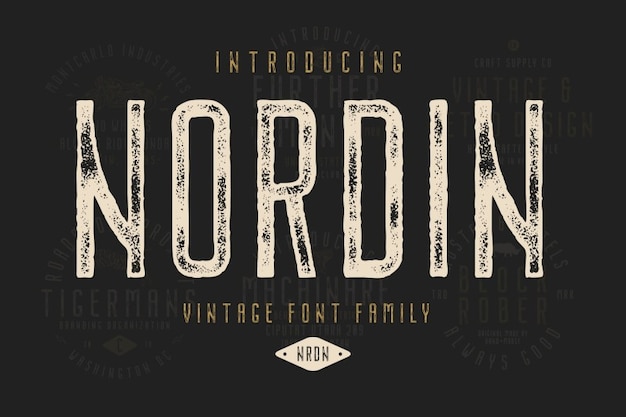
Nordin Vintage
Nordin Vintage Font
It is a font that effortlessly blends the elegance of vintage aesthetics with a dash of retro charm, all wrapped up in a geometrical framework. It's like a time machine for your typography, transporting you back to the design heydays. The clean lines and classic letterforms make it ideal for infusing your projects with a touch of old-school cool. Whether you're creating posters, logos, or branding materials, "Nordin Vintage" brings the timeless allure of the past into the present. It's a typographic journey through the best of both worlds.